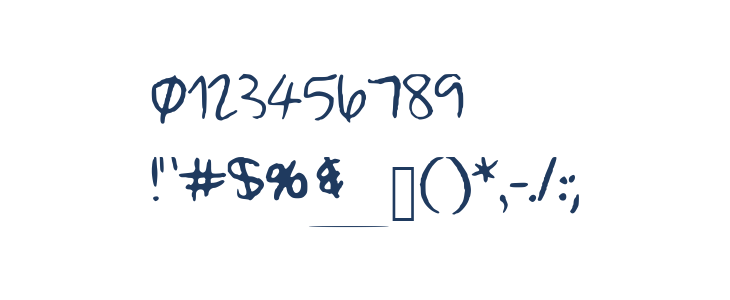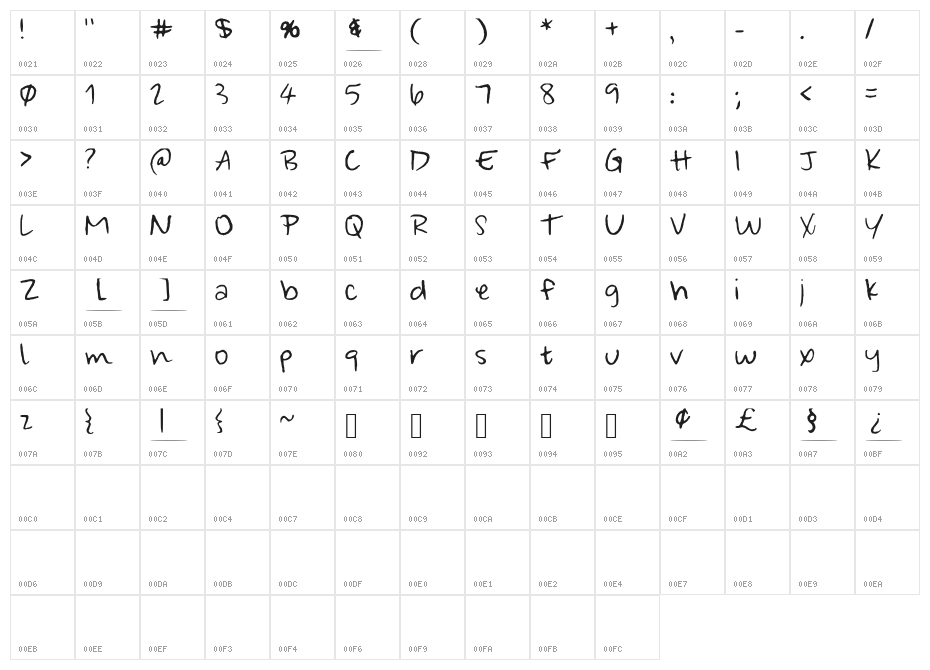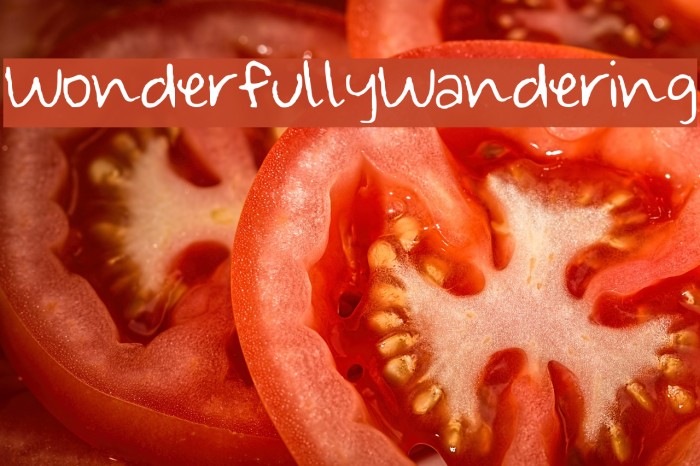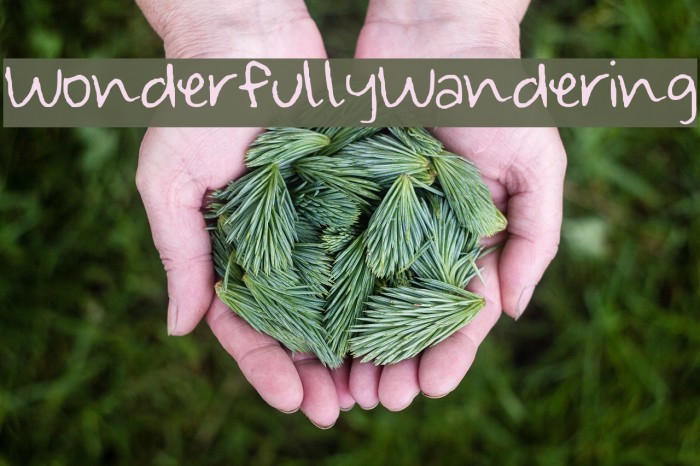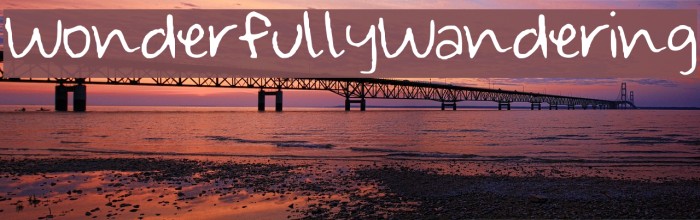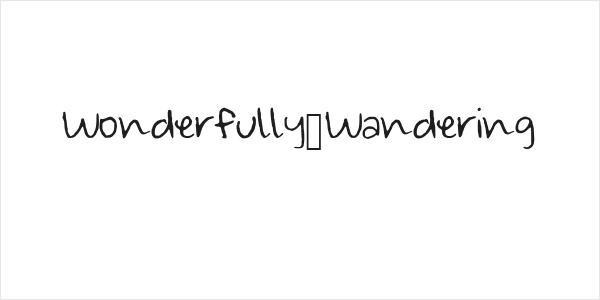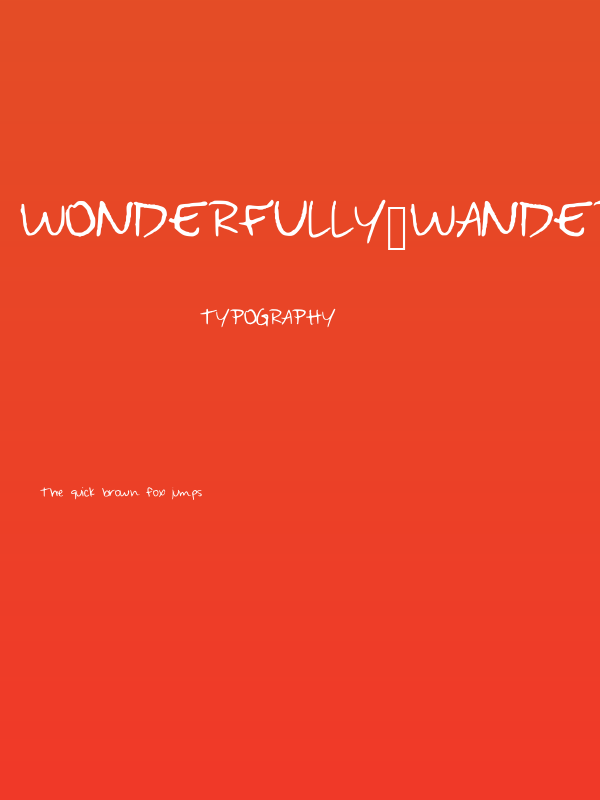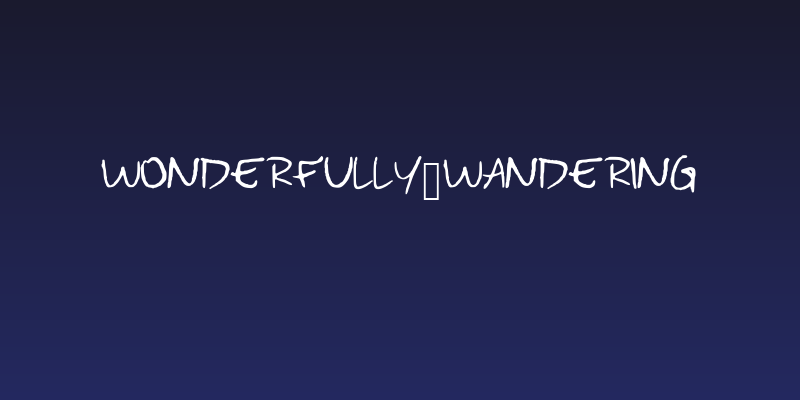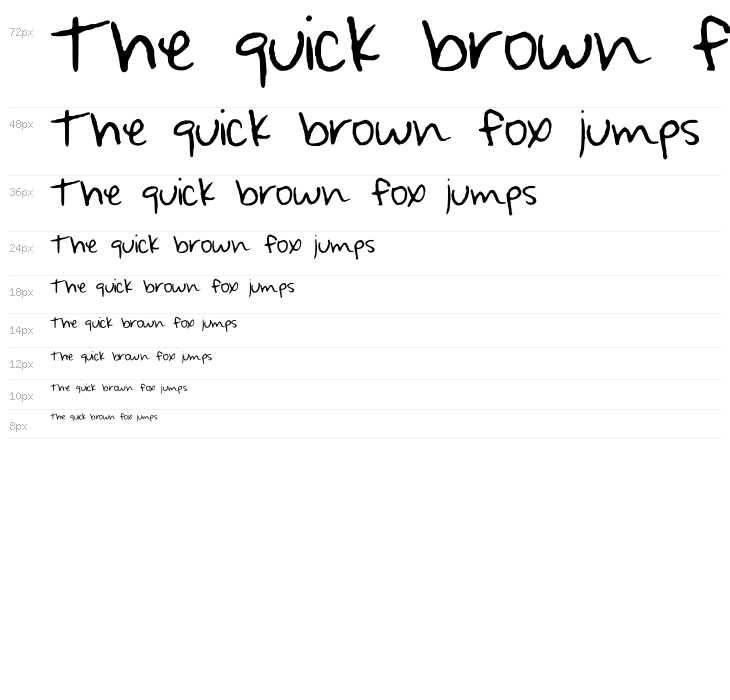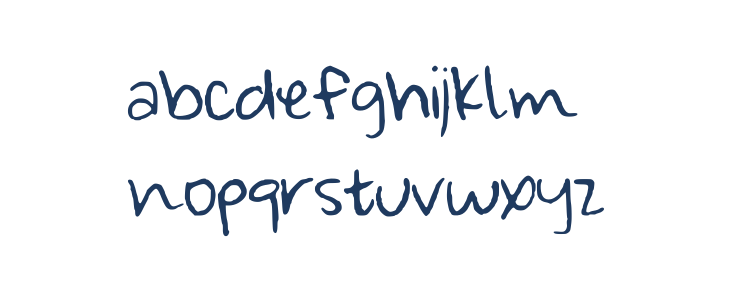
Wonderfully_Wandering Font
Wonderfully_Wandering Description
This font exudes a playful and casual handwritten style, characterized by its irregular strokes and organic flow. The letters are slightly slanted, giving a sense of movement and spontaneity. The uppercase and lowercase letters maintain a consistent style, with rounded edges and varying stroke widths that add to its informal charm. Numbers and special characters follow the same whimsical design, making it suitable for creative and informal projects. The overall appearance is approachable and friendly, perfect for conveying a personal touch.
| Use Case | Greeting cards, Personal notes, Children's books |
| Proposed Projects | Ideal for greeting cards, personal notes, children's books, and playful branding. |